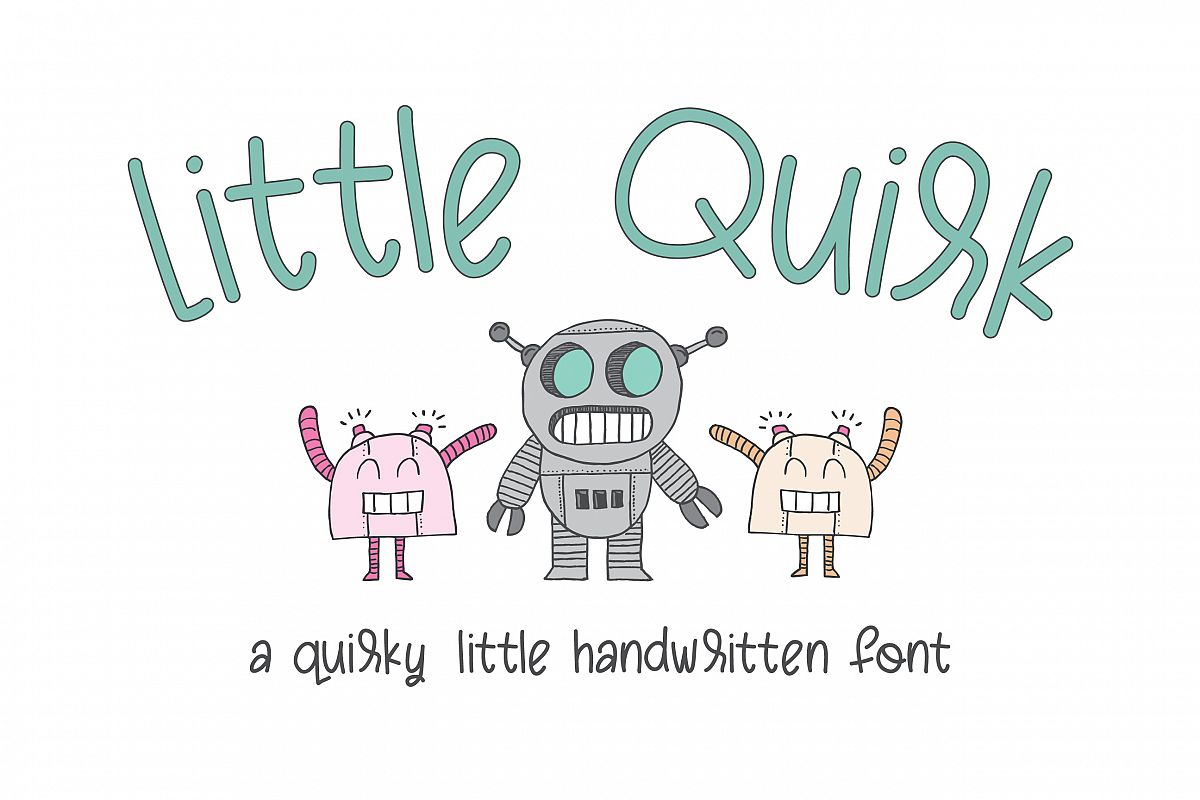
This printed, quirky font is perfect for fun craft projects for kids, teachers, classrooms, and more! Little Quirk is a handwritten font with a few quirks for added fun.